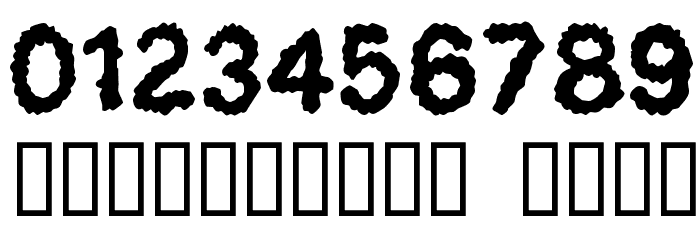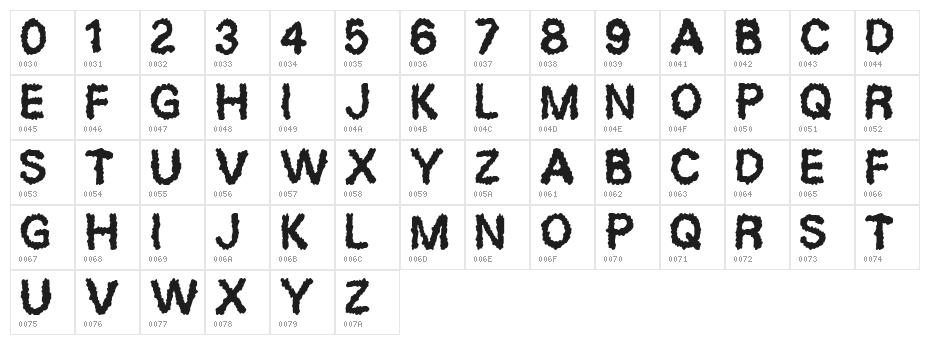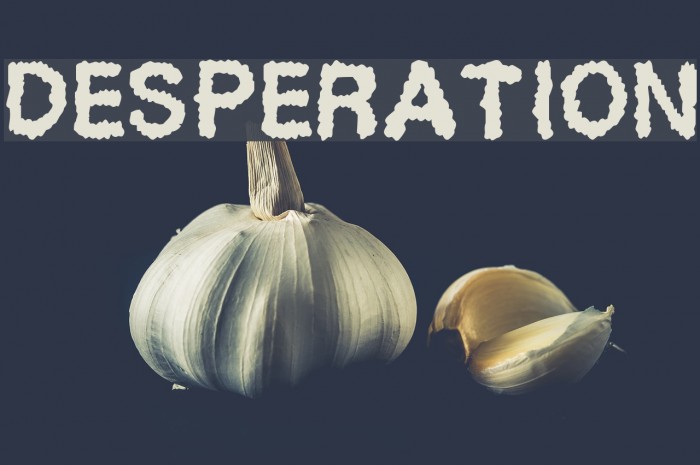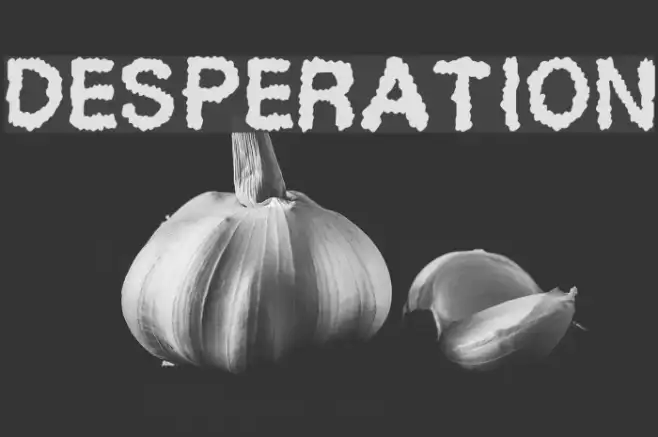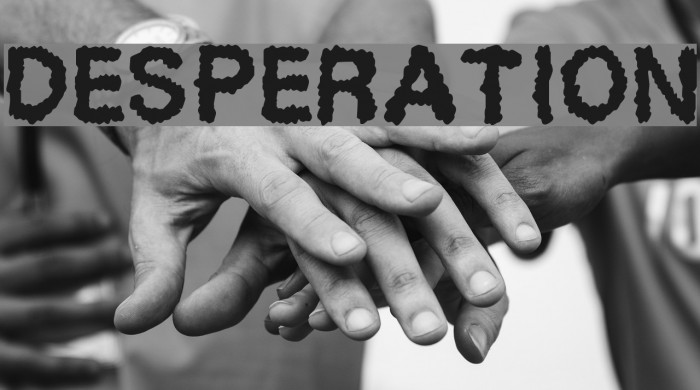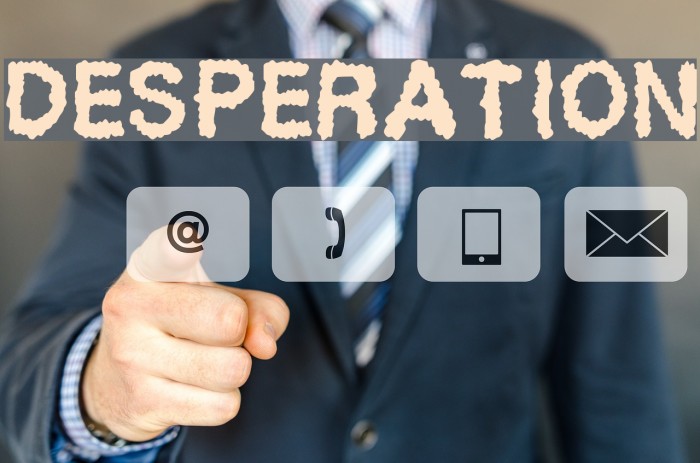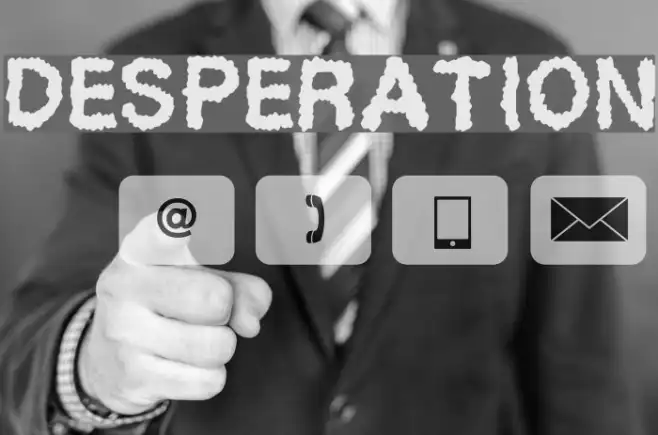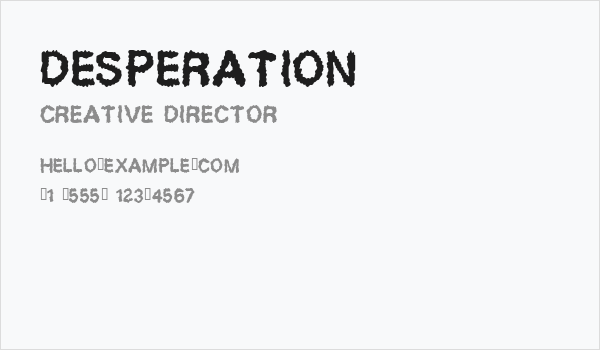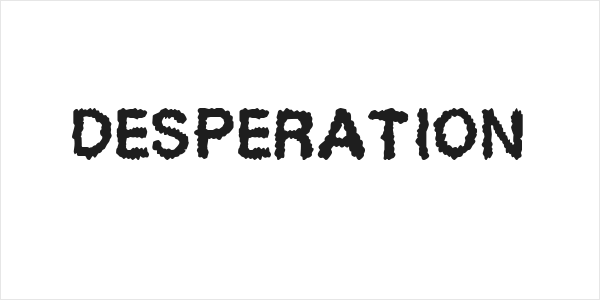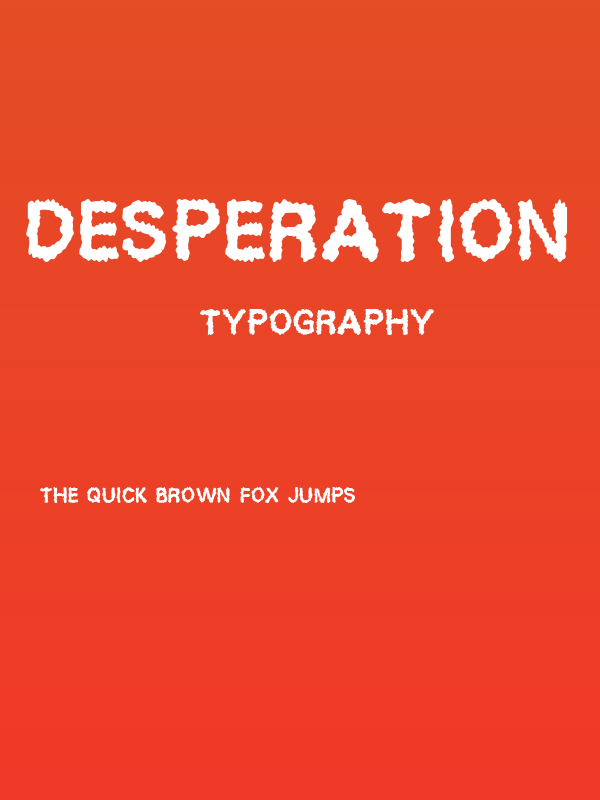
Desperation Font
Desperation Description
This font features a bold and textured appearance, reminiscent of a distressed or grunge style. Each character is filled with irregular, jagged edges that give it a dynamic and energetic feel. The uppercase and lowercase letters maintain a consistent height, while the numbers and special characters follow the same design principles. The font's unique texture makes it stand out, ideal for projects that require a bold statement or an edgy aesthetic. Its distinctive style is perfect for creative designs that aim to capture attention and convey a sense of urgency or intensity.
| Proposed Projects | Ideal for posters, album covers, edgy branding, and artistic projects. |